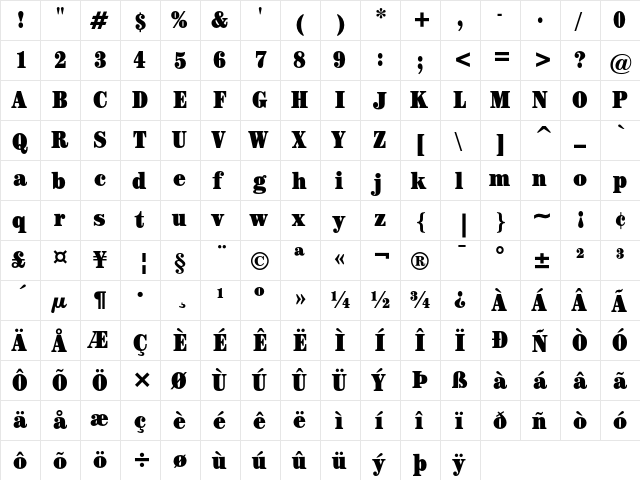
ITC Century Ultra Condensed
Design Context for ITC Century Typeface
ITC Century offers clean, dependable letterforms without strong stylistic allegiance, making it a practical choice for designers who need flexibility. The condensed width makes it efficient for tight spaces without sacrificing legibility.